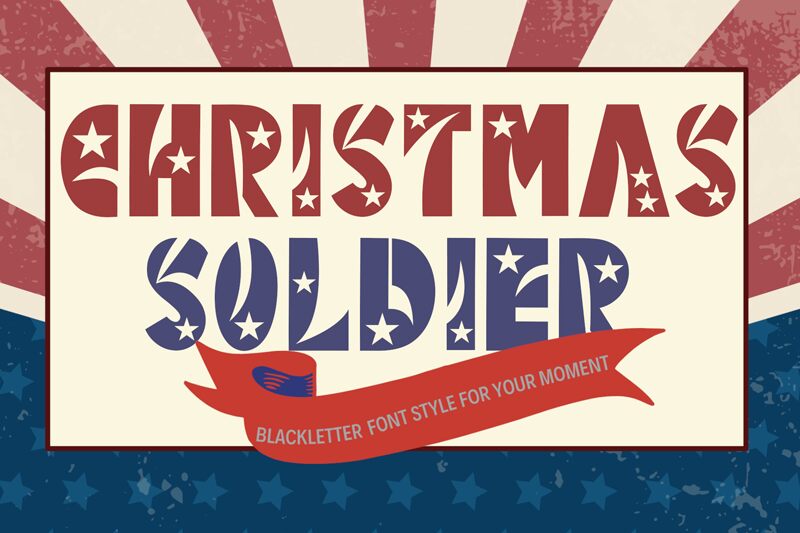
Christmas Soldier font is a free decorative typeface from Yoga Letter, designed with ornamental details and geometric elements. The font captures a strong thematic presence, reminiscent of retro inspirations, perfect for making any project shine. With its bold aesthetic and eye-catching star motifs, this font is ideal for the festive season and beyond.
Christmas Soldier’s aesthetic enables its use across various design projects. Create unforgettable print and digital invitations, cards, web designs, posters, brochures, branding, and packaging. Its bold vibe is also great for themed magazine layouts and diverse advertising designs with a sense of festivity.